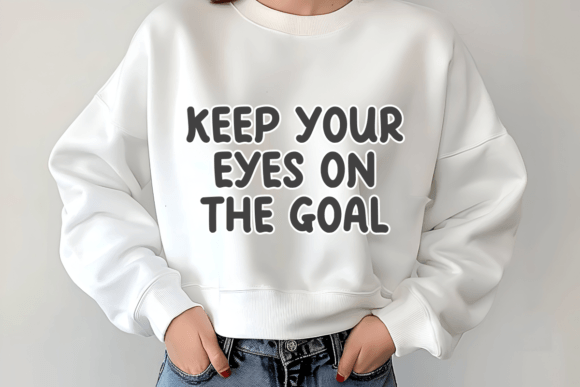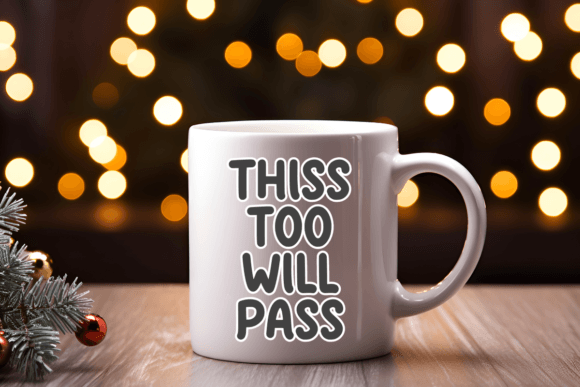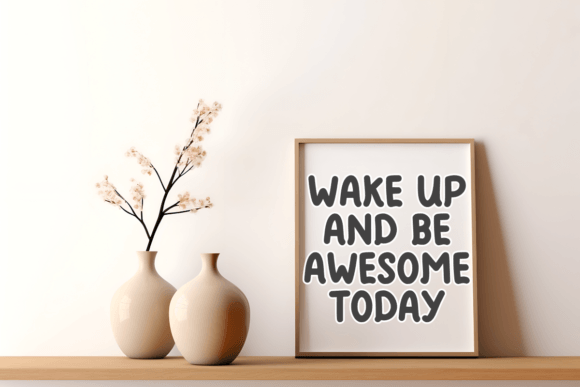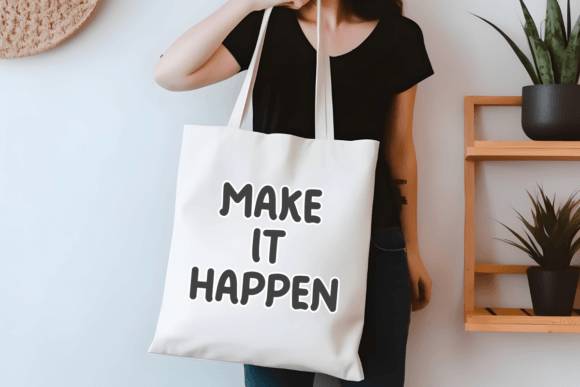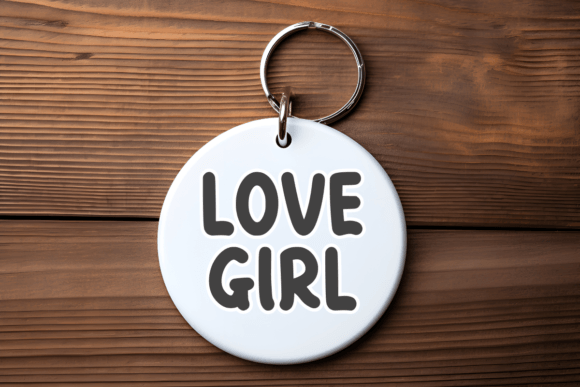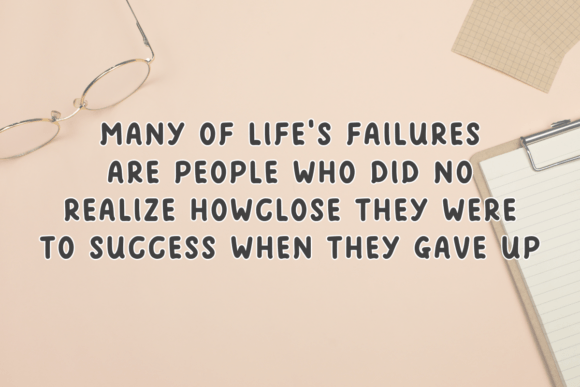
Introducing Good Vibes Font: The Ultimate Retro Display Font for Creative Projects
Are you on the hunt for a font that can add a dash of fun and quirkiness to your designs? Look no further than Good Vibes, a retro display font that’s sure to become a staple in your font library. With its unique blend of playfulness and style, Good Vibes is the perfect choice for designers and crafters looking to elevate their creations and make them stand out from the crowd.
What Makes Good Vibes Font So Special?
Good Vibes is more than just a font – it’s an experience. With its fun, retro, and quirky vibe, this display font is sure to bring a smile to your face and inspire your creativity. Whether you’re working on a branding project, a craft, or a digital design, Good Vibes has the potential to take your work to the next level. Its versatility and charm make it an incredible asset to any font library, and it’s sure to become a go-to choice for designers and crafters alike.
Key Features of Good Vibes Font
So, what sets Good Vibes apart from other fonts out there? Here are just a few of its key features:
- Retro charm: Good Vibes has a distinctly retro feel that’s sure to evoke memories of the good old days. Its unique blend of classic and modern elements makes it a standout choice for designers looking to add a touch of nostalgia to their work.
- Quirky and fun: This font is all about having fun and embracing your creative side. With its playful curves and irregular shapes, Good Vibes is the perfect choice for designers who want to add a dash of personality to their work.
- Display font: Good Vibes is a display font at heart, making it perfect for headlines, titles, and other attention-grabbing elements. Its bold and eye-catching design ensures that your text will stand out from the crowd and grab the attention of your audience.
- Versatile: Despite its retro charm, Good Vibes is surprisingly versatile. It can be used for a wide range of projects, from branding and advertising to crafting and digital design.
How to Use Good Vibes Font in Your Designs
So, how can you use Good Vibes in your designs? Here are just a few ideas to get you started:
- Branding and logos: Good Vibes is a great choice for branding and logos, particularly for businesses that want to convey a fun and playful vibe.
- Headlines and titles: This font is perfect for headlines and titles, where its bold and eye-catching design can really make an impact.
- Crafting and DIY projects: Good Vibes is a great choice for crafters and DIY enthusiasts who want to add a personal touch to their projects.
- Digital design: This font can also be used in digital design, such as social media graphics, blog posts, and website headers.
Why Good Vibes Font is a Must-Have for Designers and Crafters
So, why should designers and crafters add Good Vibes to their font library? Here are just a few reasons:
- Unique and distinctive: Good Vibes is a truly unique and distinctive font that’s sure to set your designs apart from the crowd.
- High-quality design: Good Vibes is a high-quality font that’s been carefully designed to ensure that it looks great in any context.
In conclusion, Good Vibes is a fun, retro, and quirky display font that’s sure to become a staple in any designer’s or crafter’s font library. With its unique blend of playfulness and style, this font has the potential to elevate any creation and make it stand out from the crowd. Whether you’re working on a branding project, a craft, or a digital design, Good Vibes is the perfect choice for designers and crafters who want to add a dash of personality and whimsy to their work.
Get Ready to Spread Good Vibes with This Amazing Font!